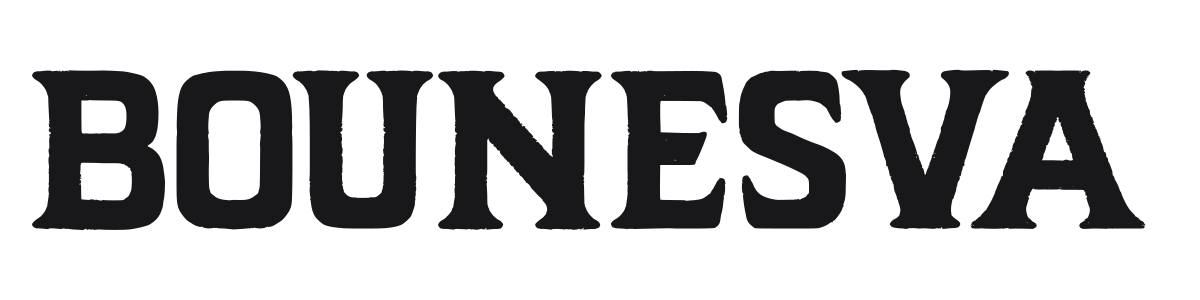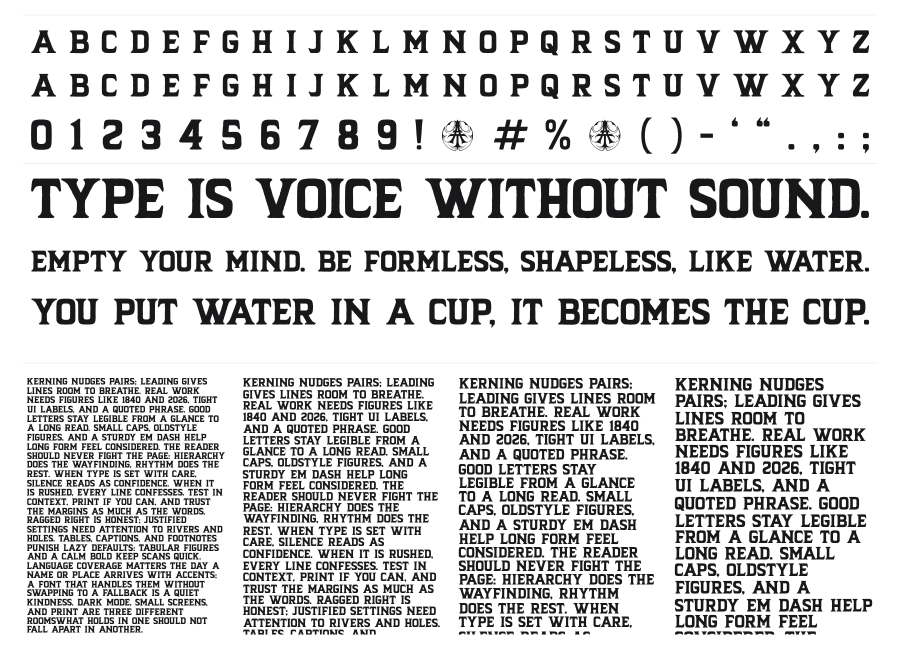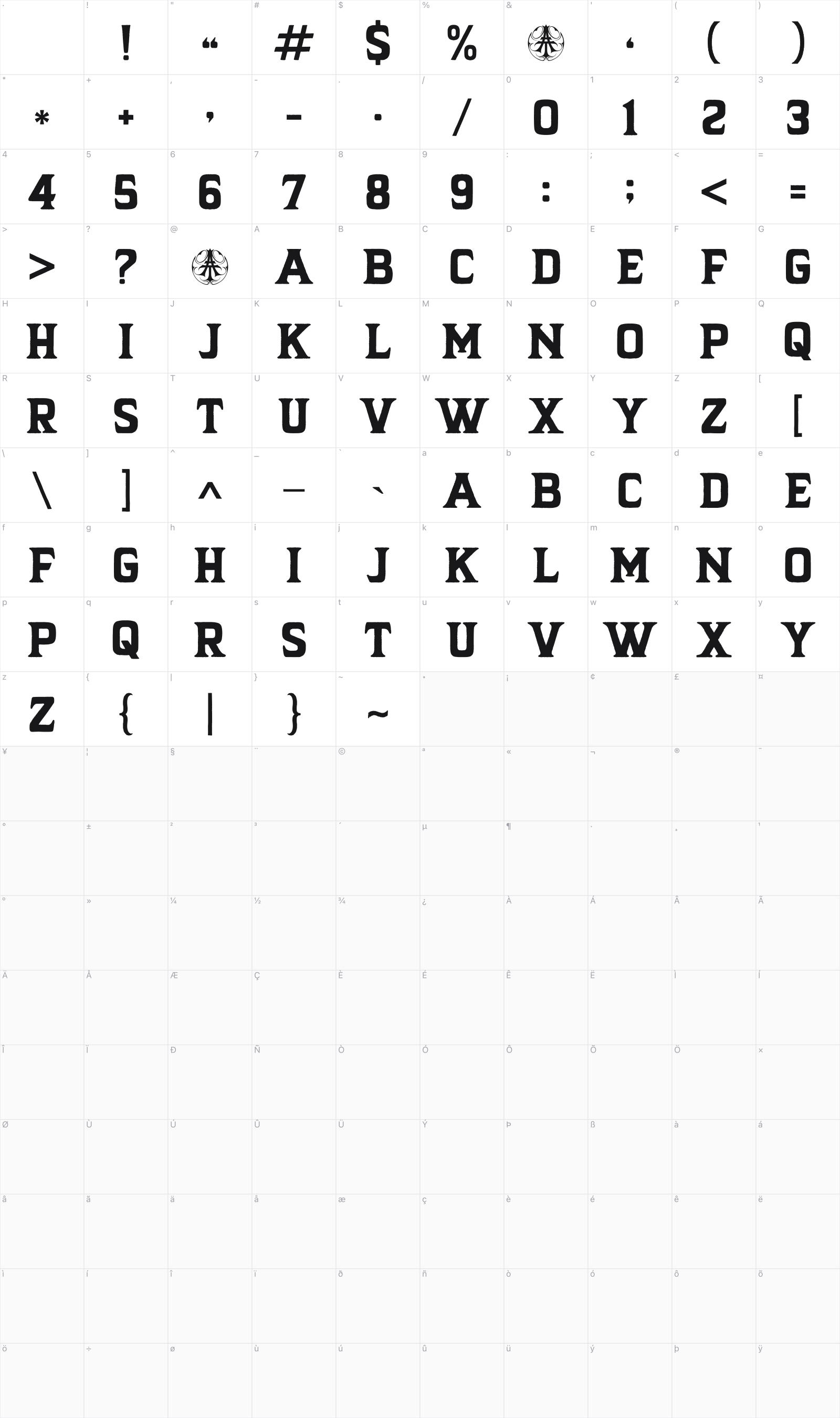
Bounesva
Bounesva is a bold condensed slab serif with a distinctly athletic, collegiate personality. Its thick stems, bracketed serifs, and tight spacing channel American varsity and sports typography traditions. Strong at large sizes for headlines, posters, and team branding.